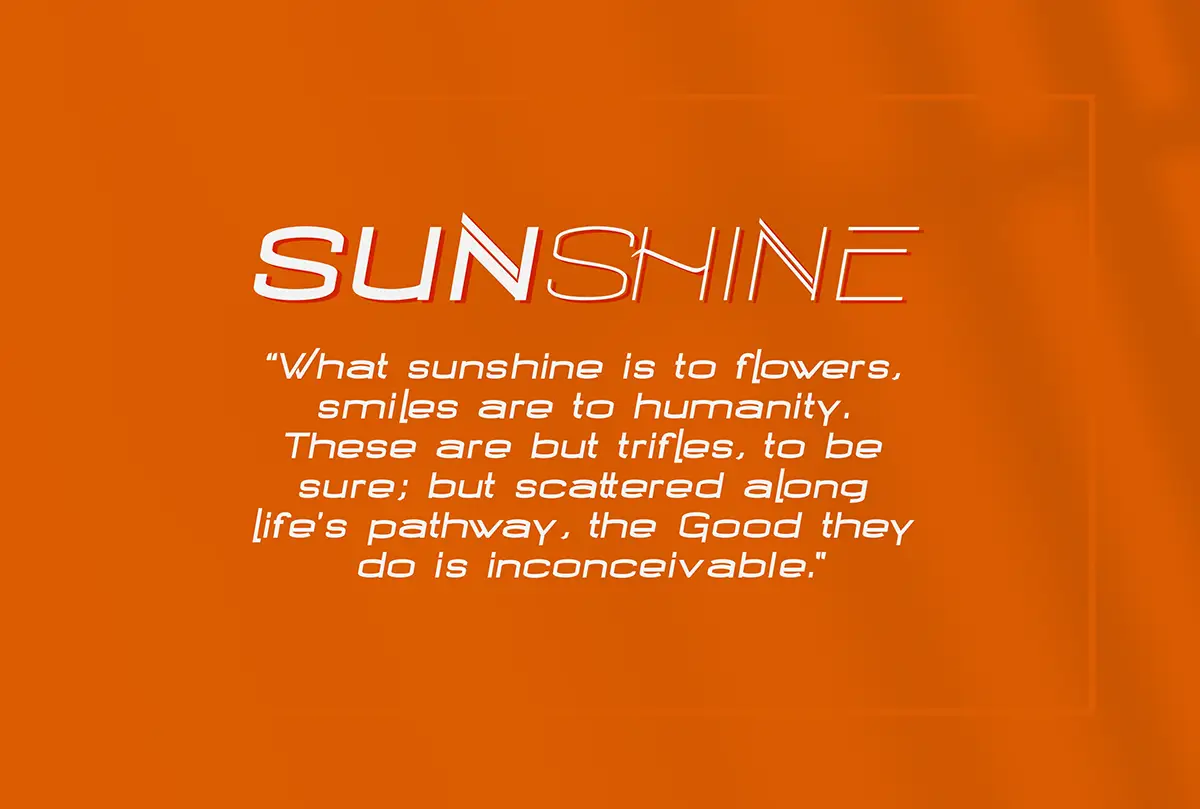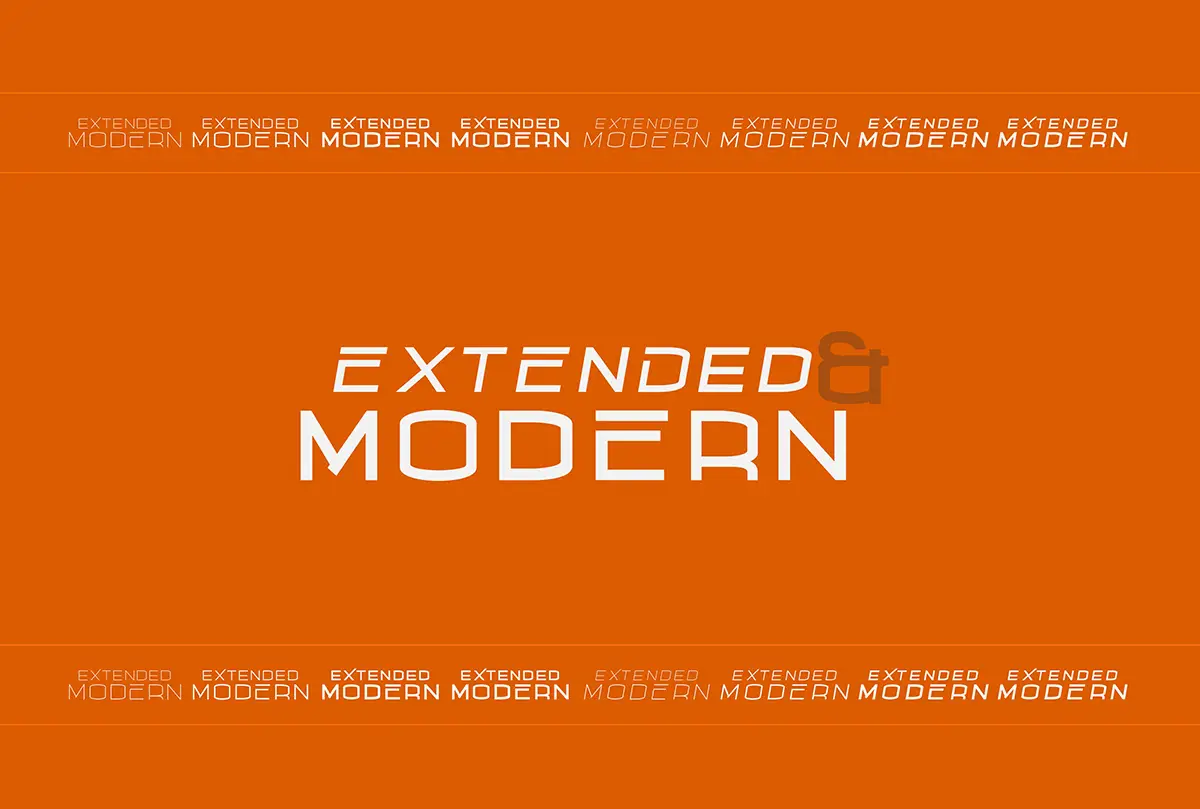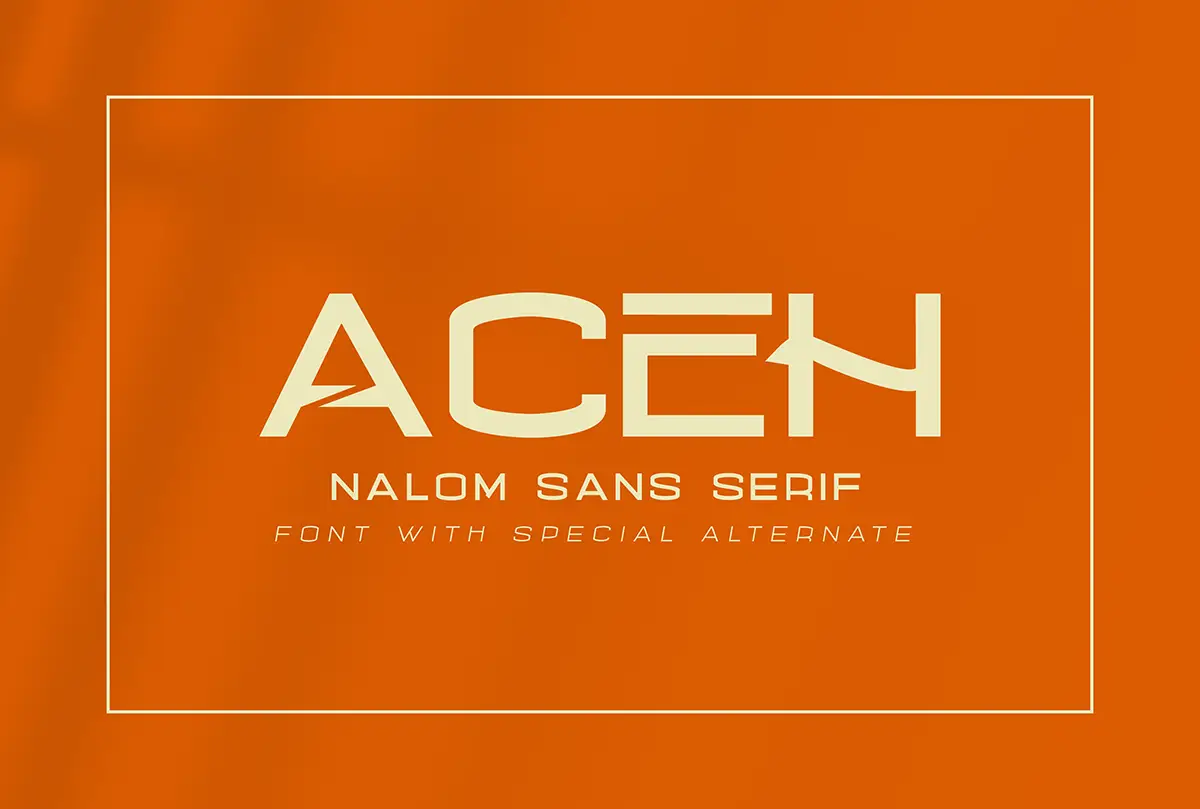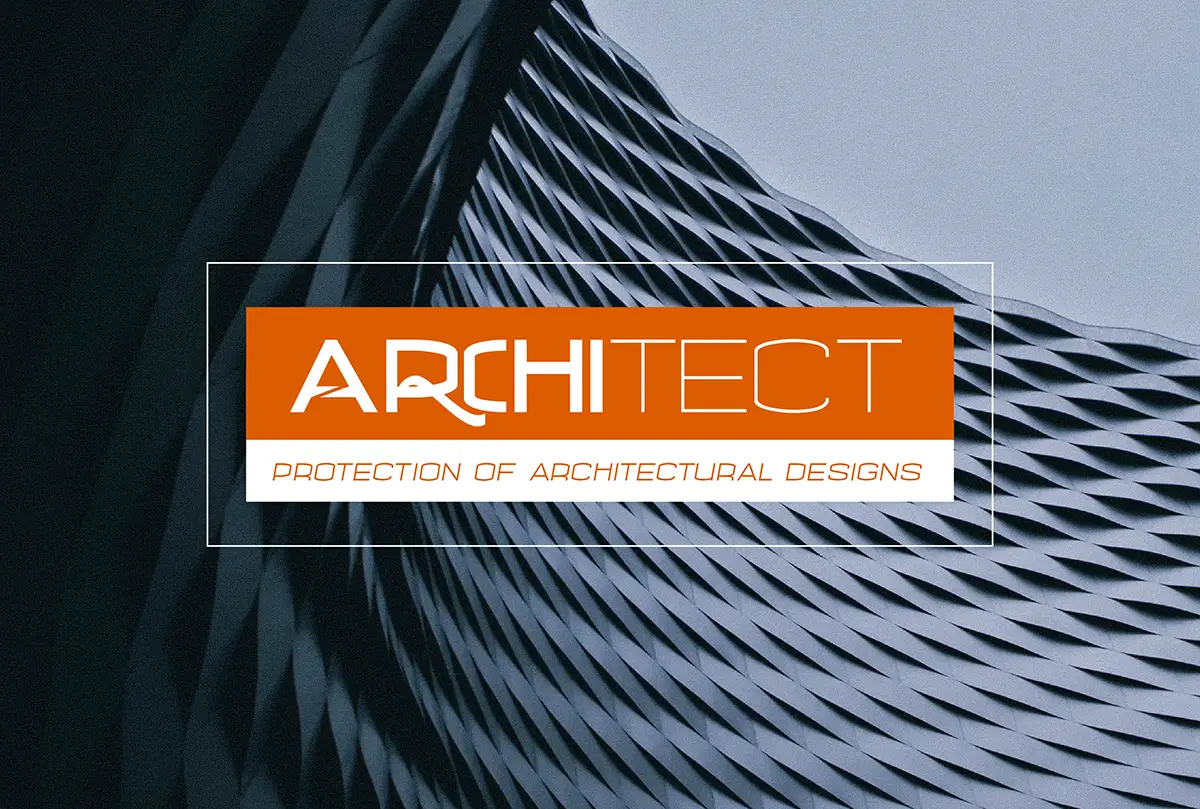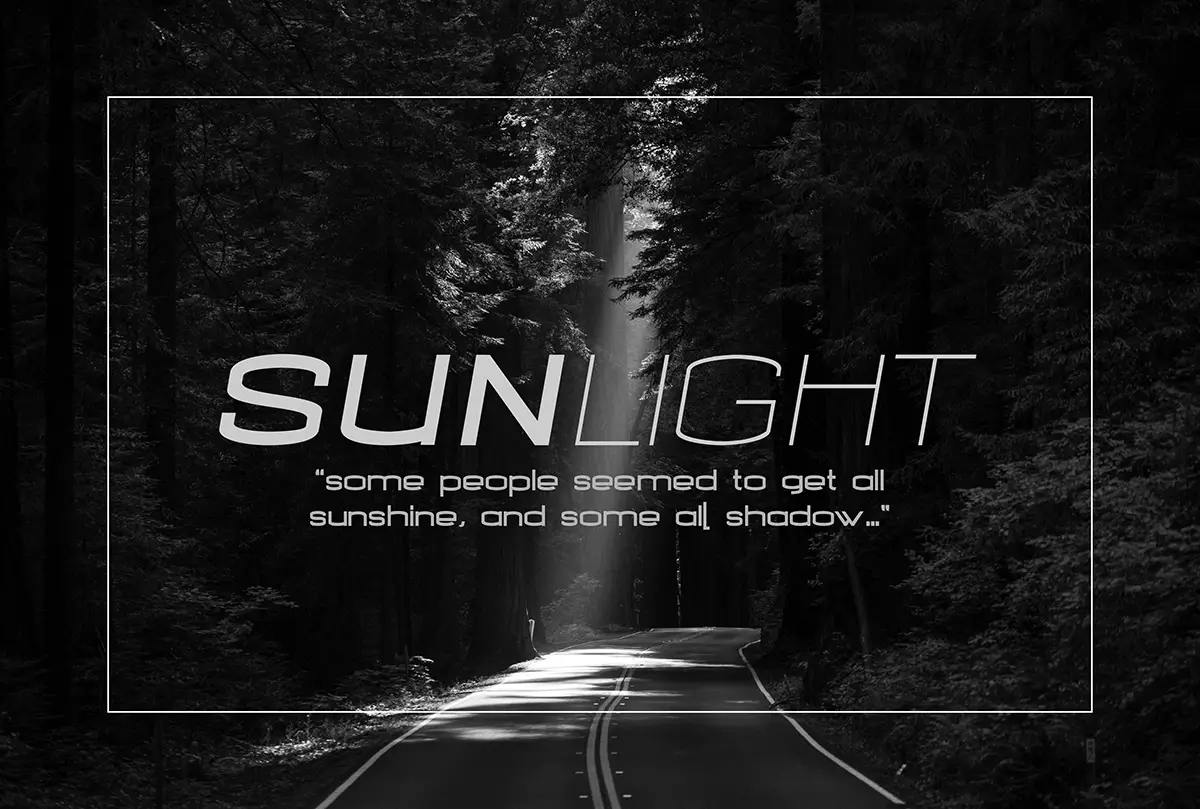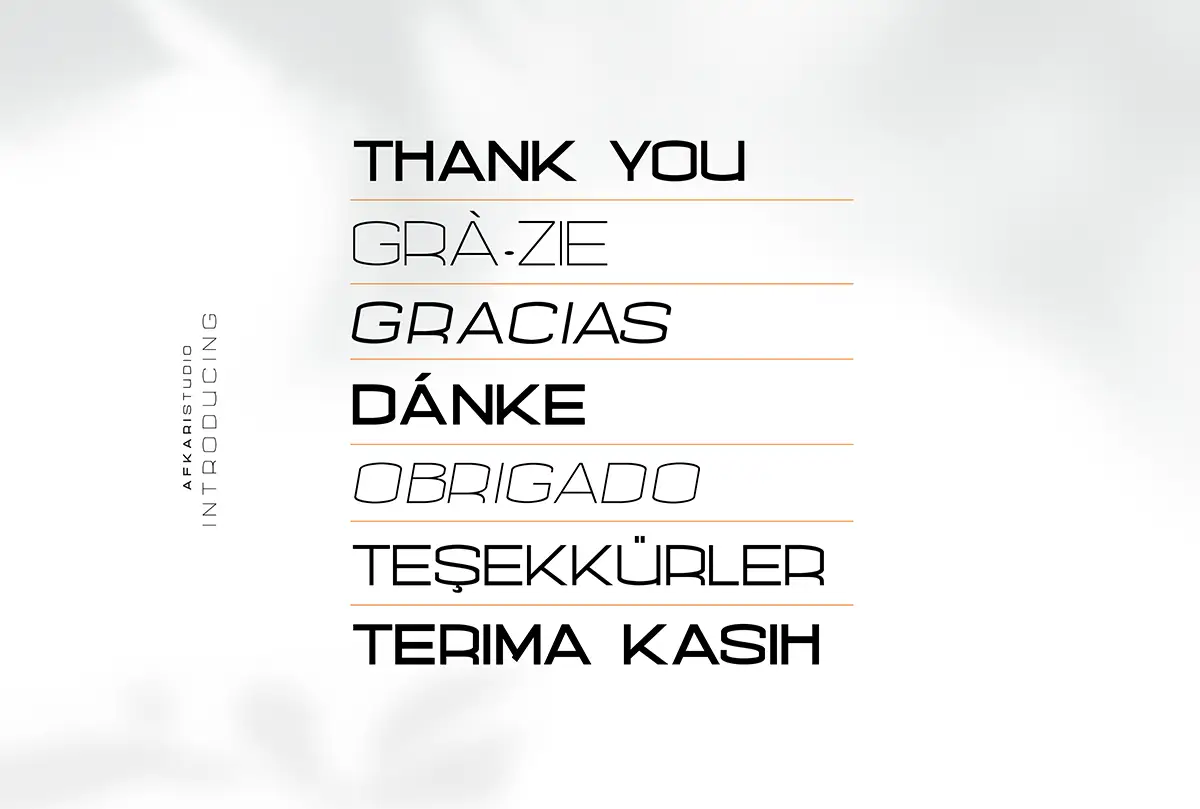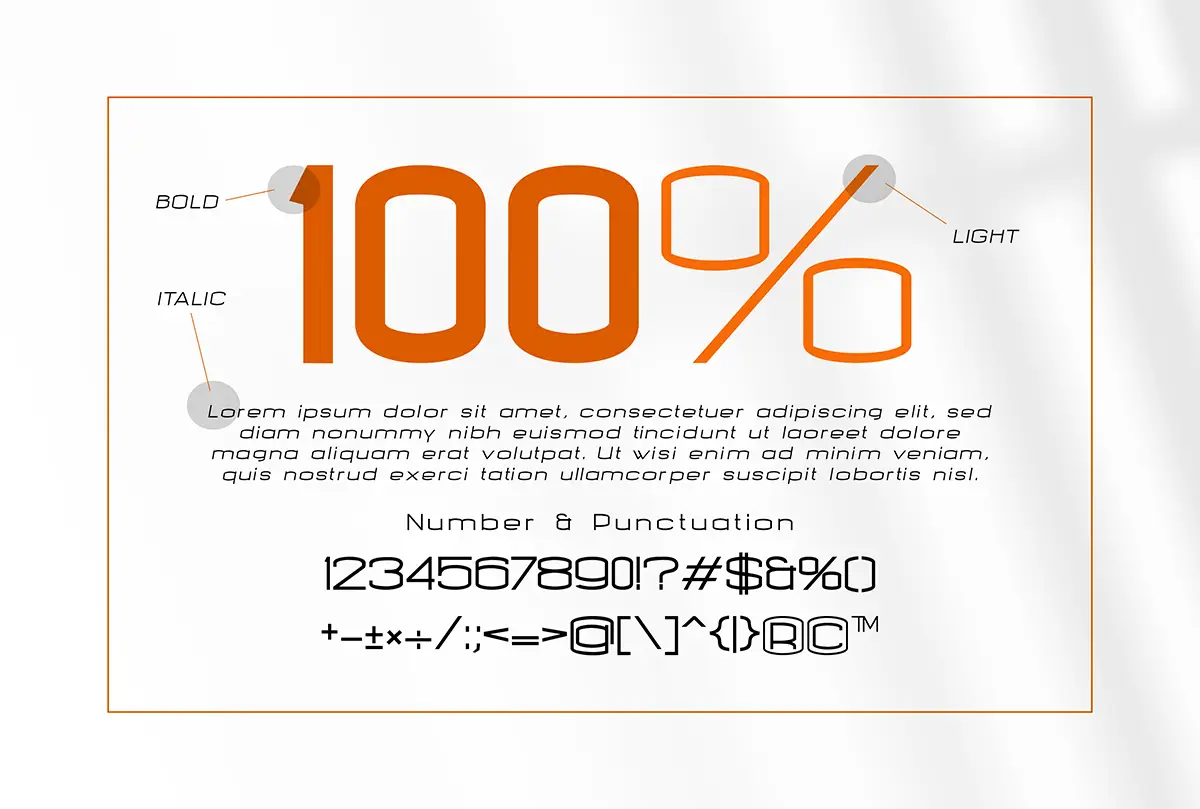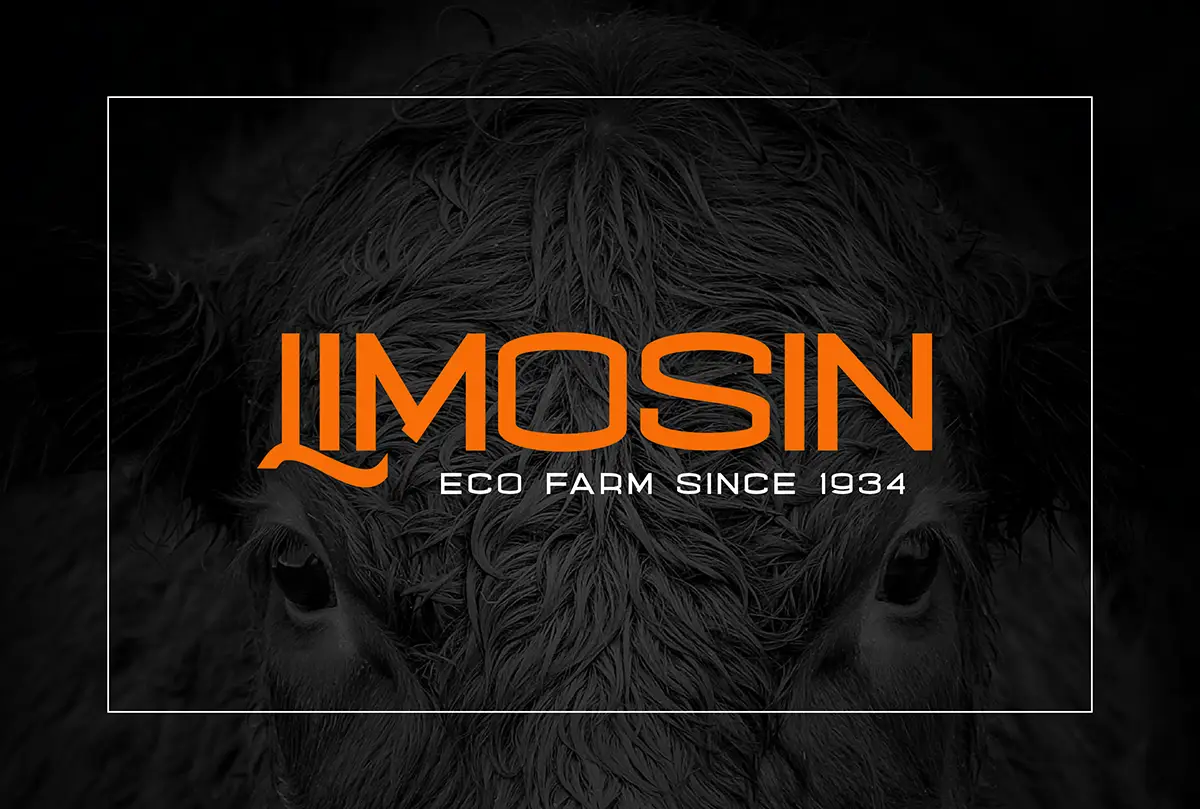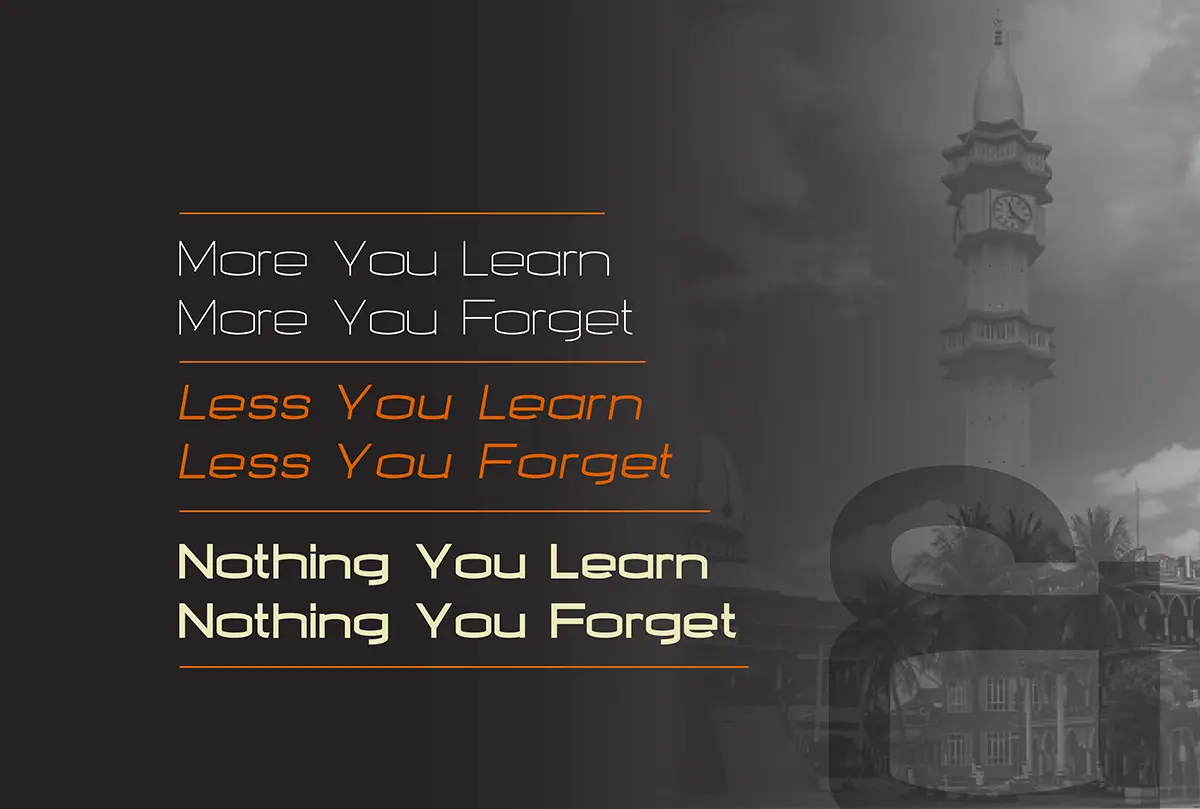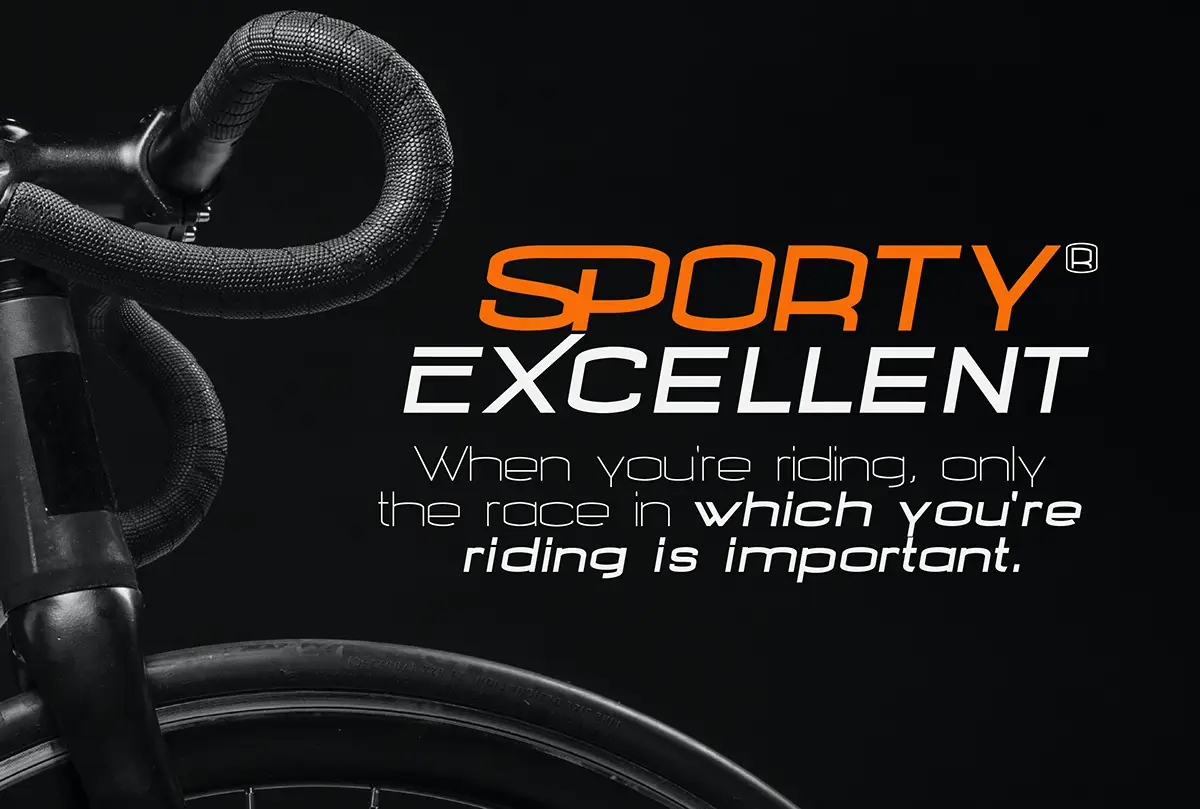
Nalom Sans Serif Font is a modern and versatile typeface designed to elevate your design projects. With its clean lines and geometric shapes, this font is perfect for a variety of applications, including branding, logos, web design, and print materials.
- Available in multiple weights for flexibility
- Geometric sans serif style for a contemporary look
- Easy to read at various sizes
- Supports multilingual characters
- Weights: Regular, Bold, Light
- Ideal for both digital and print projects
- Use in headlines for impactful statements
- Combine with other fonts for a unique typographic hierarchy